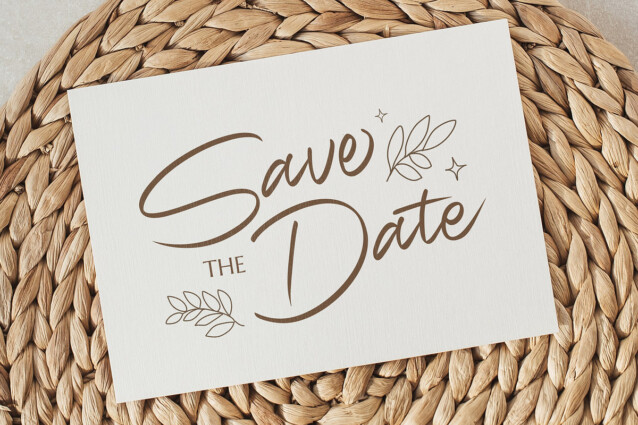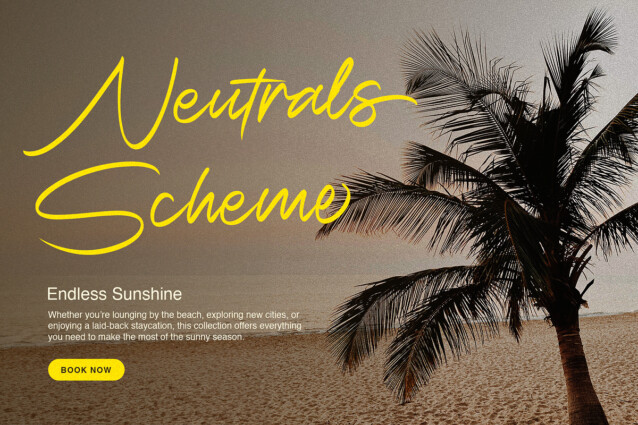
Moonlight Breeze Font
Moonlight Breeze Font is a casual chic hand-lettered typeface. This brush script font has got the perfect blend of sophistication and playfulness, making it the perfect choice for all your creative projects.
Every letter is crafted with a delicate touch, exuding elegance and warmth, perfect for adding a personal and artistic flair to your projects.